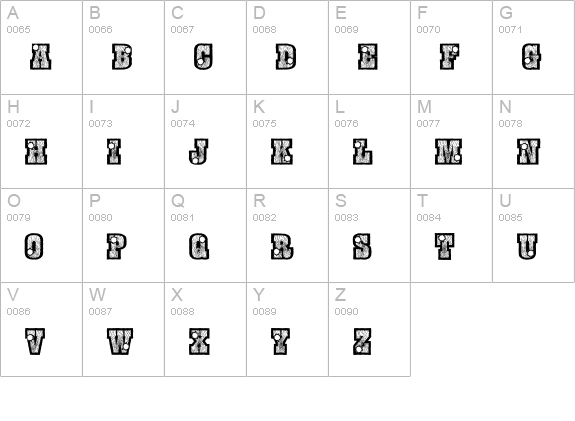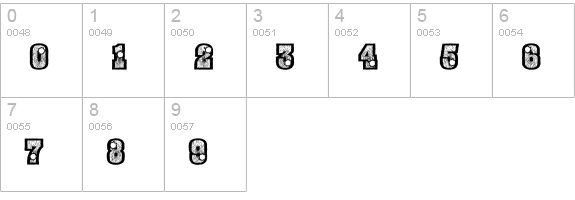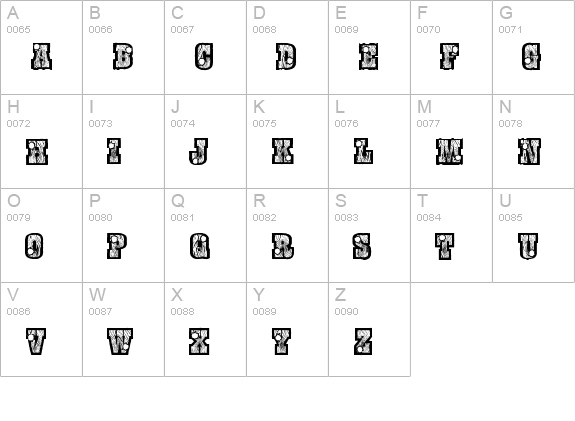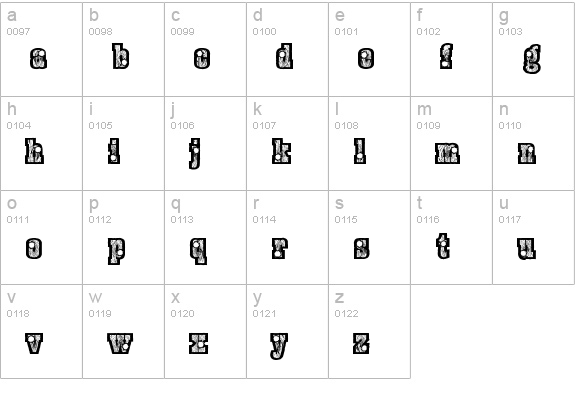
BurrisShootOut Font Details
BurrisShootOut font is a bold and dynamic typeface that exudes energy and impact. Its strong, angular lines give it a sense of power and vigor, making it a perfect choice for designs that need to make a statement. This font is versatile and can be used for a variety of projects, from posters to logos to packaging. What sets BurrisShootOut font apart is its unique style and character, which adds a touch of personality to any design. It is a free font that is available for download at FontsMarket.com, making it accessible to anyone looking to add a touch of boldness to their projects. Whether you're working on a branding project, a social media graphic, or a signage design, BurrisShootOut font is sure to make an impact and leave a lasting impression.